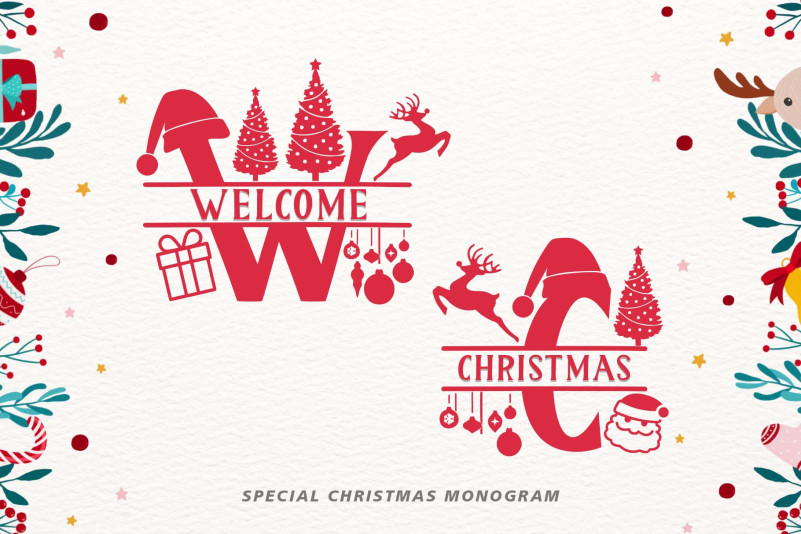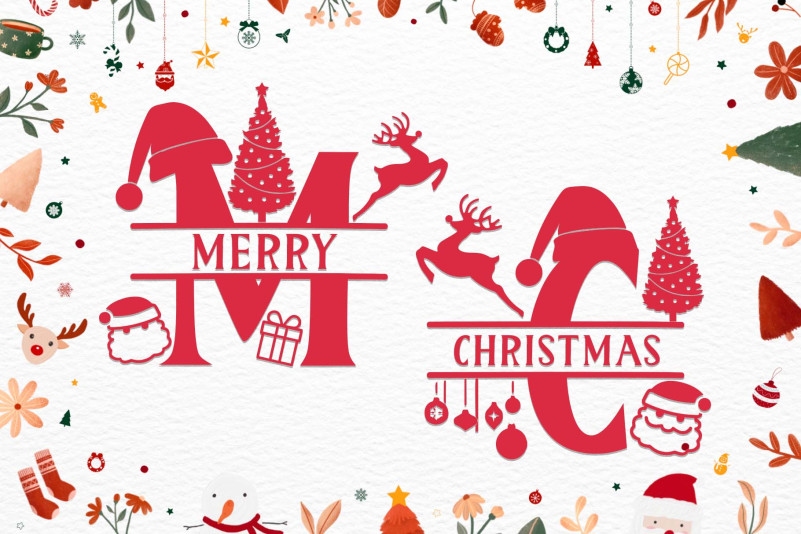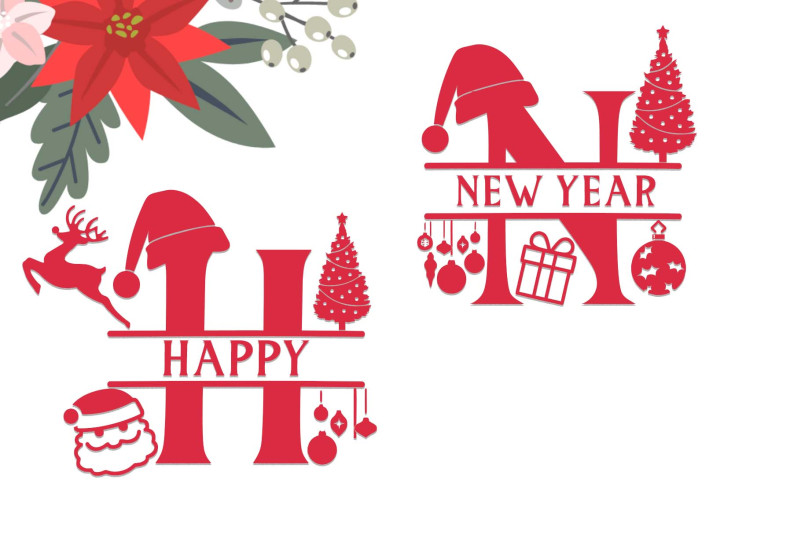
WELCOME CHRISTMAS MONOGRAM TYPEFACE
“Welcome Christmas Monogram” is a monogram serif font decorated with Christmas-themed shapes. This font features monograms, uppercase, lowercase, numerals, punctuations and multilingual support. This font is perfect for winter and christmas, logos, valentines, movie titles, and more.